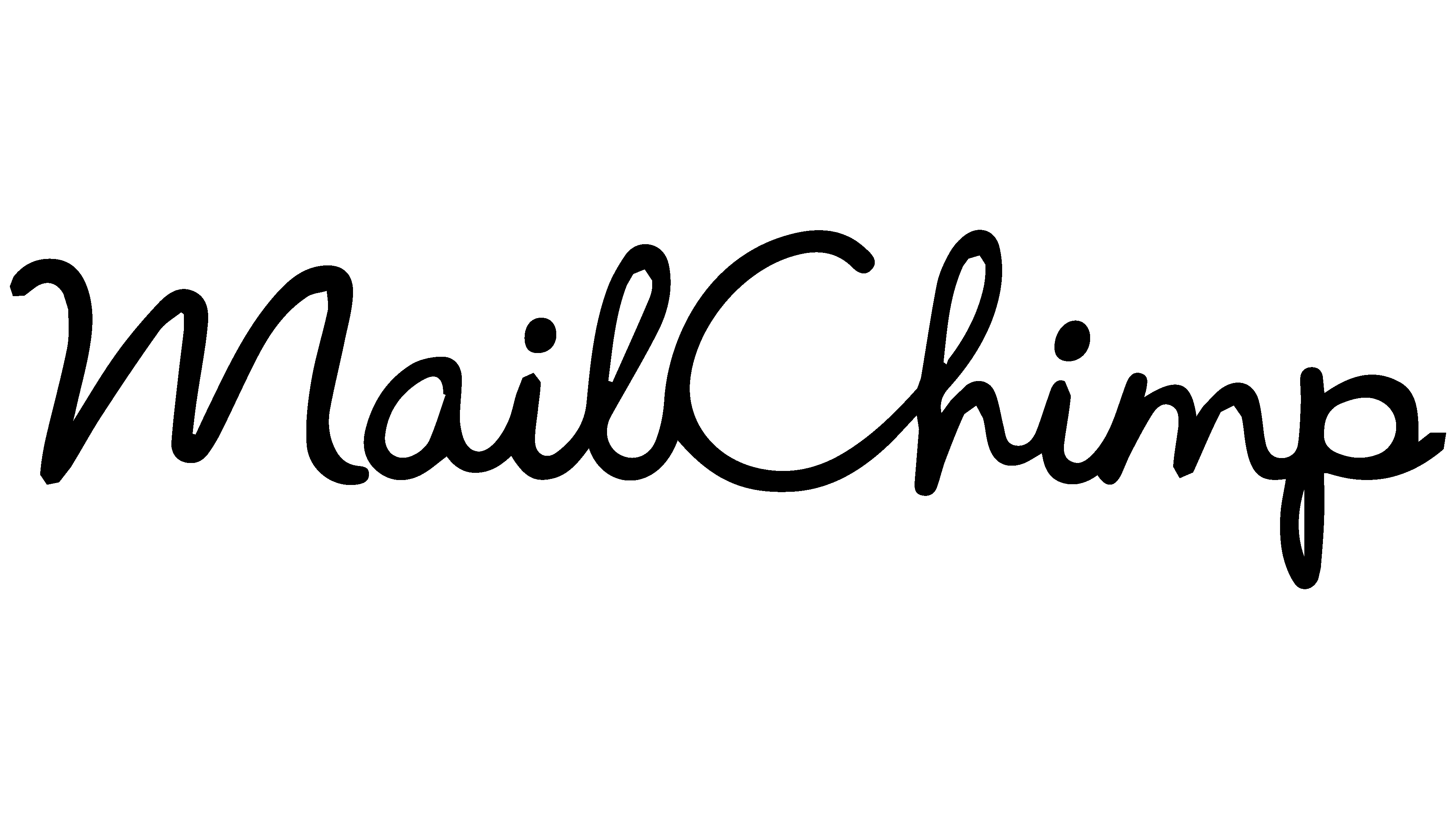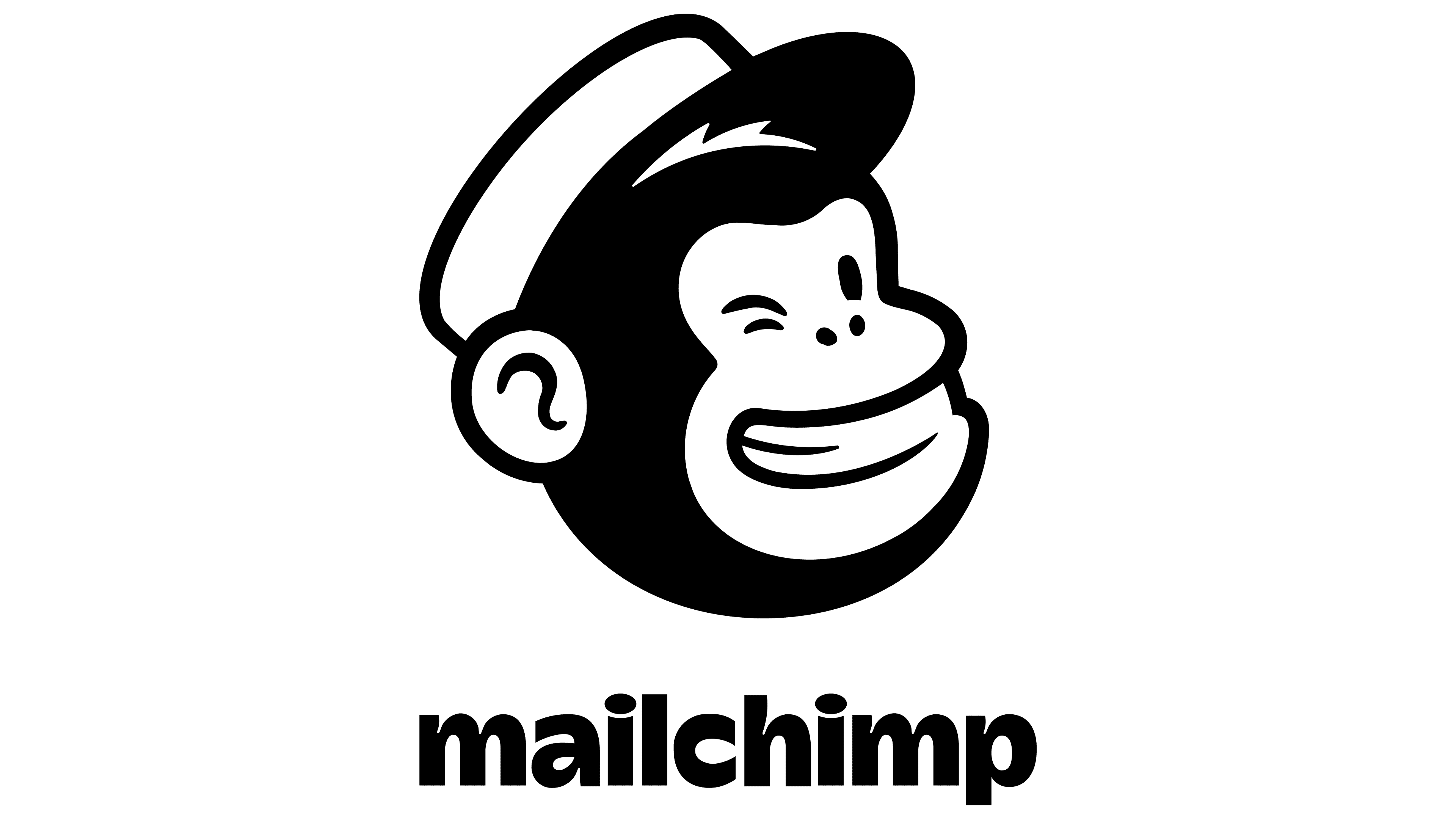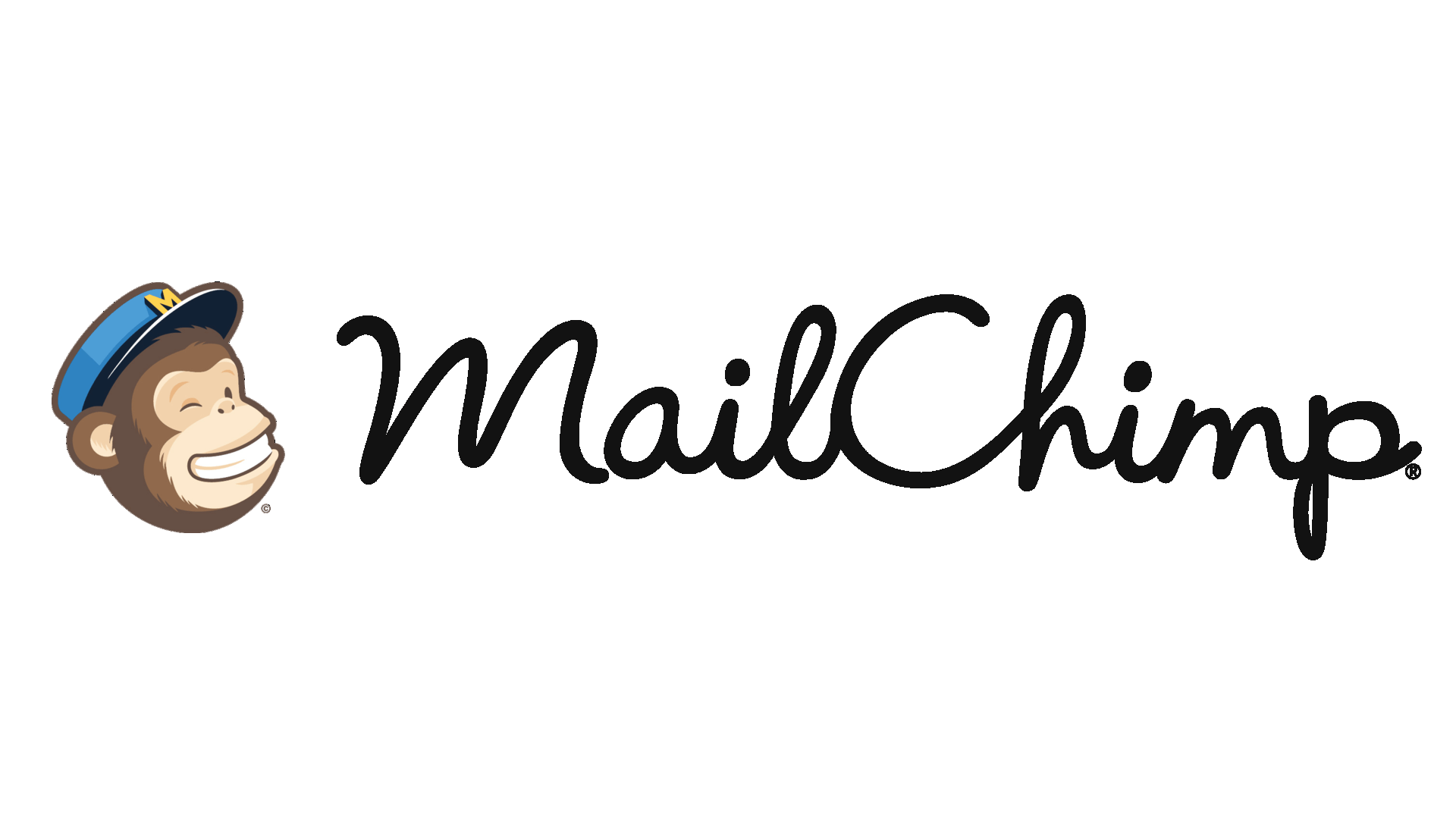
Famous Mailchimp Logo Font 2023
Famous Mailchimp Logo Font 2023. Available now in font awesome pro. Web maginors is a serif based logo font with unique lowercase that will make your design looks stylish and modern.
The Best Mailchimp Header Size.
Web The Font Used For Mailchimp Logo Is Very Similar To Wendy Medium, Which Is A Casual Script Font Designed By Garrett Boge And Published By Letterperfect.